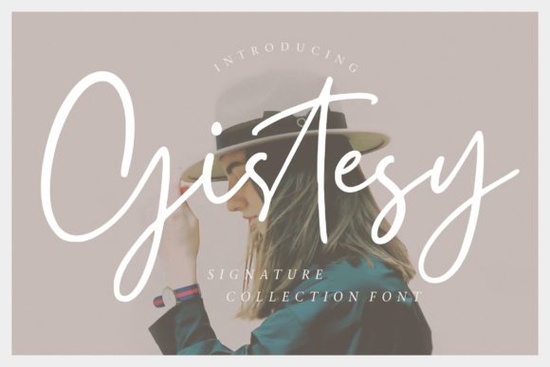
Looking for a handwritten font that feels warm, personal, and easy to work with? The Gistesy Font is a sweet, casual script that brings a natural hand-lettered look to all kinds of design projects. Whether you're making wedding invitations, social media graphics, or t-shirt designs, this font has a soft, approachable style that fits right in.
What Does the Gistesy Font Look Like?
Gistesy is a cute and sweet handwritten font with a flowing, connected script style. The letters have a natural rhythm they don't look overly polished or mechanical. Instead, they feel like something a real person would write by hand with a felt-tip pen or brush marker.
The character shapes are rounded and slightly playful, which gives designs a friendly, down-to-earth tone. It works well at both small and medium sizes, making it a flexible option for a range of creative work.
Who Is This Font Best For?
This type of script font tends to work really well for specific types of creators. Here's who will get the most out of it:
- Wedding and event designers It's ideal for save-the-dates, menus, place cards, and thank-you notes.
- Print-on-demand sellers The handwritten feel sells well on mugs, tote bags, and greeting cards.
- Small business owners Use it for logos, packaging, or branding that needs a personal touch.
- Social media creators Quotes, Instagram stories, and Pinterest pins all look great with a casual script like this.
- Crafters and hobbyists If you use a cutting machine or design stickers, a font like Gistesy adds charm to your projects.
Where Can You Use a Handwritten Font Like Gistesy?
Handwritten fonts are one of the most versatile font categories out there. With Gistesy, you can use it for:
- Invitation cards and stationery
- Blog headers and website accents
- T-shirt typography and apparel graphics
- Digital planners and journaling kits
- Logo design for bakeries, boutiques, and lifestyle brands
- Wall art prints and motivational posters
The key is to use it where you want your design to feel approachable and human. It's not the right fit for corporate or technical projects, but for anything that benefits from warmth and personality, it's a strong pick.
How Does Gistesy Compare to Other Script Fonts?
If you're browsing through script fonts and trying to figure out which one fits your project, it helps to compare. Gistesy leans more toward the sweet and delicate side, similar in spirit to fonts like Milkshake Font, which also has a playful handwritten quality.
On the other hand, if you need something with a more elegant and traditional script feel, something like the Southmore Font might suit formal invitations or upscale branding better.
For teaching materials or classroom resources, the Gorgeous Teacher Font is designed with readability in mind. And if you're looking for something more modern and bold with contrasting weights, check out Fidelity Contrasts Font it works well for headlines and editorial layouts.
Gistesy fits somewhere in the middle of all these: casual enough for everyday use but polished enough to look professional.
Tips for Pairing Gistesy With Other Fonts
Good font pairing makes a big difference in how your design looks and reads. Here are a few simple tips:
- Pair it with a clean sans-serif. Fonts like Montserrat, Poppins, or Raleway balance out the organic feel of a handwritten script.
- Use Gistesy for headings or accent text only. Script fonts can be harder to read in long paragraphs, so keep body text simple.
- Match the mood. Since Gistesy is soft and sweet, pair it with fonts that share a friendly, approachable tone rather than something stiff or overly geometric.
- Keep contrast in mind. A thick, bold font next to a thin script creates visual interest without clashing.
Is Gistesy Worth Adding to Your Font Collection?
For creators who build up a library of fonts for different moods and projects, having a few quality handwritten options on hand saves time and keeps your work looking fresh.